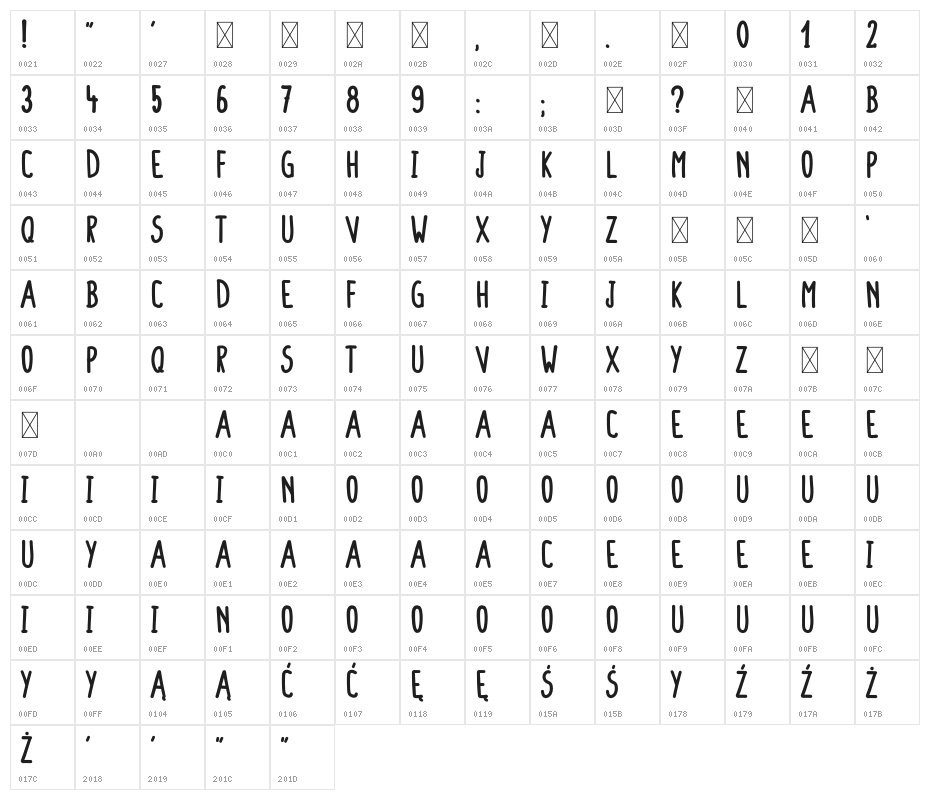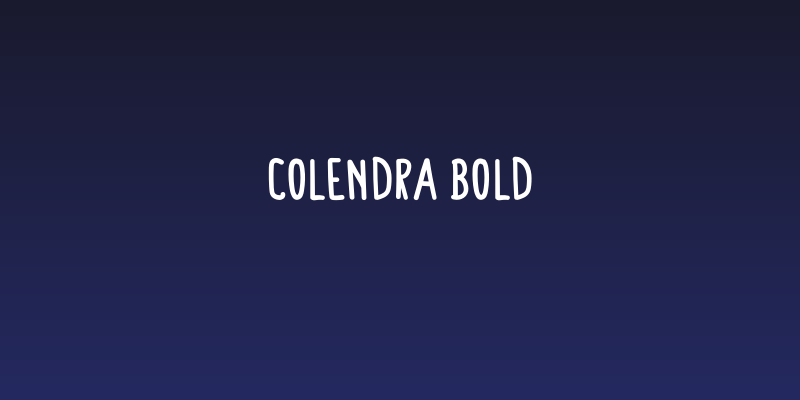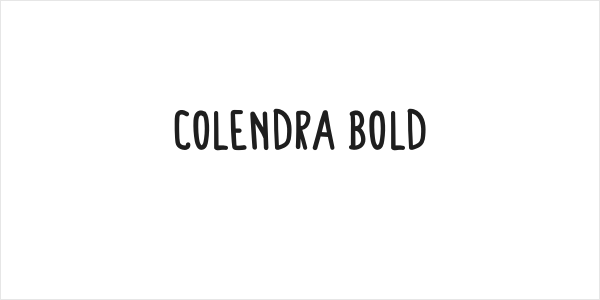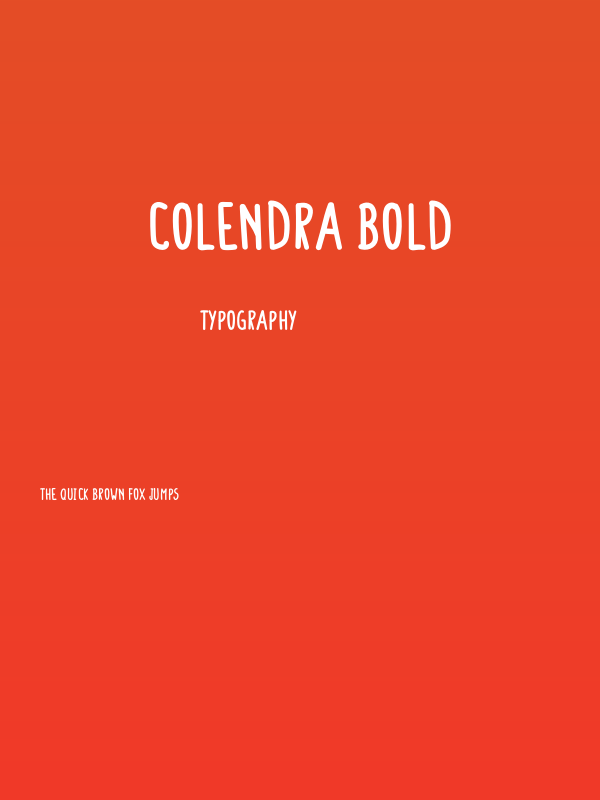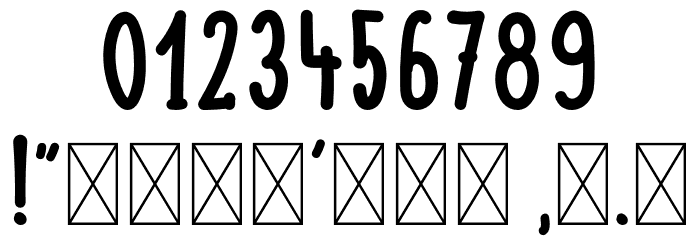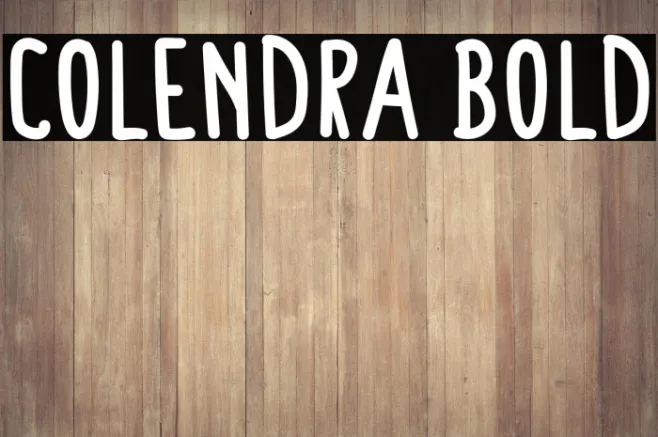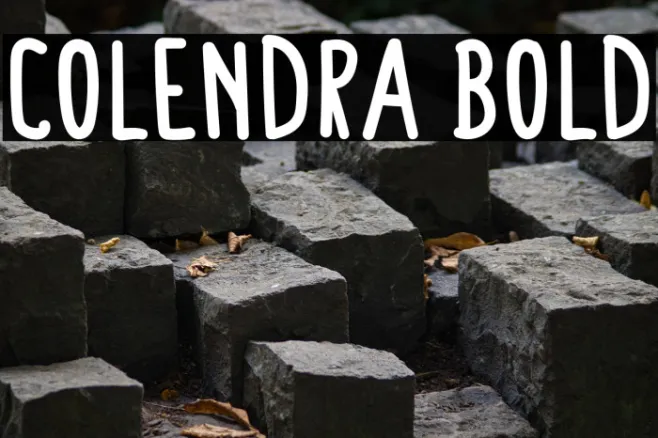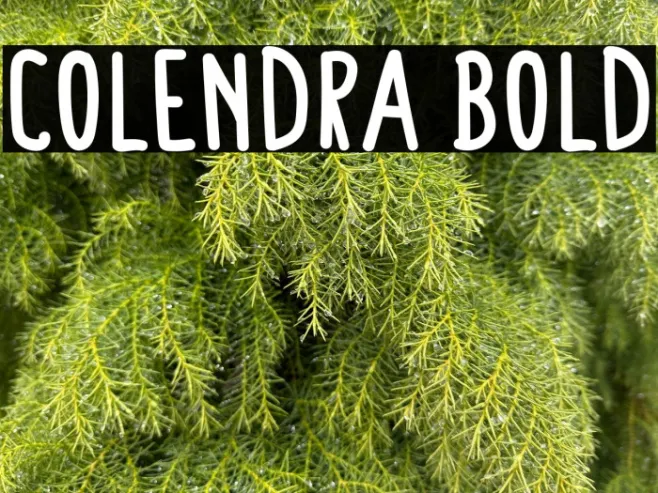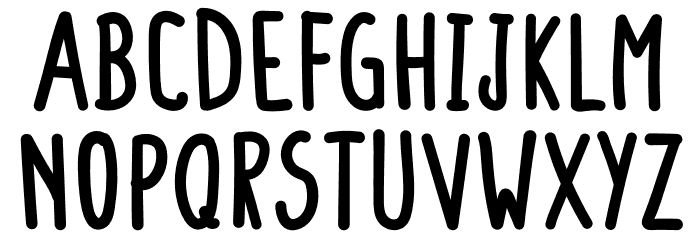
Colendra Bold Font
Colendra Bold Description
This font features a playful and bold handwritten style, characterized by its thick strokes and slightly irregular letterforms. The uppercase and lowercase letters maintain a consistent weight, providing a cohesive look across the alphabet. The numbers are equally bold, ensuring visibility and readability. The font's casual and friendly appearance makes it suitable for informal and creative projects. Its unique style is accentuated by the rounded edges and slight variations in stroke width, adding a touch of personality and warmth. The spacing between characters is relatively tight, which enhances the font's compact and impactful presence.